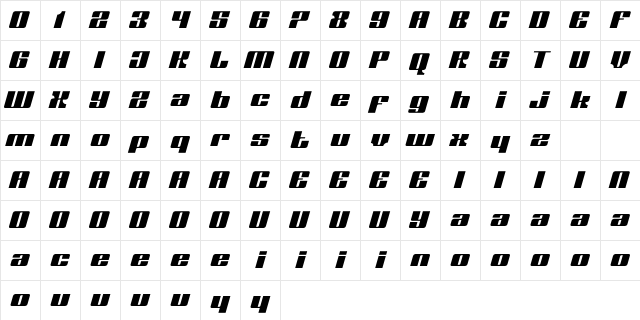
Kimura Display Regular
Design Context for Kimura Display
Kimura Display is built around its visual character rather than neutral utility - its distinctive forms are designed to make an impression at display sizes.
Font Pairing: Pair with a clean neutral sans-serif for body copy to let Kimura Display's character lead without overwhelming the composition.
Pro Tip: Use Kimura Display exclusively at display sizes - it was designed to be seen, not read at length. Let a neutral companion handle body copy.